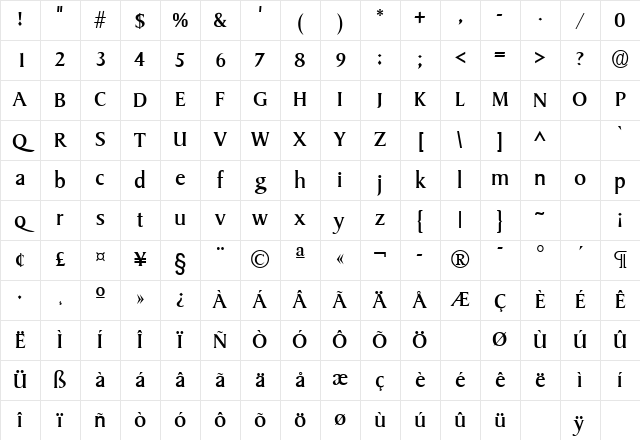
Opera SF Regular
Design Context for Opera SF
Opera SF is a composed and adaptable typeface that performs quietly and consistently across a wide range of design contexts.